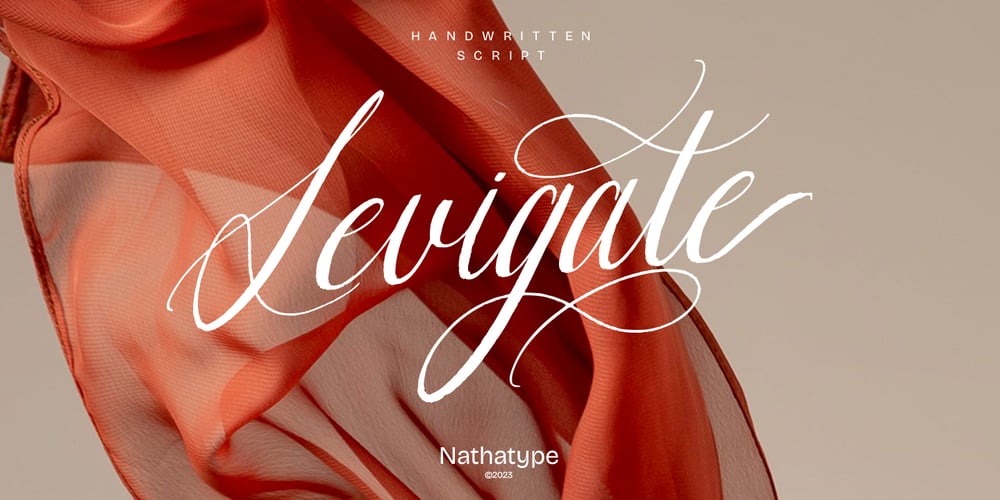
Levigate Font Family was designed by Donis Miftahudin and published by Nathatype. Levigate contains 1 styles and family package options. Levigate is a graceful script font that beautifully captures the essence of cursive handwriting with a touch of sophistication. This typeface exudes an air of elegance and refinement, making it perfect for projects that require a stylish and polished look. Each letter in this font is meticulously crafted with high contrast, adding a dynamic and eye-catching quality to the font. The combination of thick and thin strokes creates a sense of fluidity and movement, adding a sense of energy and vibrancy to your typography. The swinging endings in some letters of Levigate bring a touch of whimsy and personality to the font. These charming details add a flourish of creativity and uniqueness, making the script come to life with a sense of playfulness. For the best legibility you can use this font in the bigger text sizes. Enjoy the available features here.Features: Stylistic Sets Ligatures Multilingual Supports PUA Encoded Numerals and Punctuations Levigate fits in headlines, logos, movie posters, flyers, invitations, greeting cards, branding materials, print media, editorial layouts, headers, and many more. Find out more ways to use this font by taking a look at the font preview.Thanks for purchasing our fonts. Hopefully, you have a great time using our font. Feel free to contact us anytime for further information or when you have trouble with the font. Thanks a lot and happy designing.